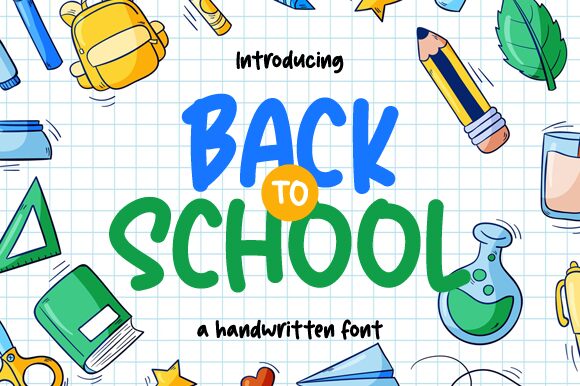
Back To School
Discover the charming allure of 'Back To School' by Graphix Line Studio, a font that captures the essence of handwritten authenticity. With its bold strokes and simple lettering, this font evokes the nostalgia of chalkboard scribbles and the excitement of learning.
Ideal for educational materials, inspirational quotes, or any project requiring a touch of personalization, 'Back To School' offers versatility in its most delightful form. Its legible yet playful style ensures your creative works stand out with a genuine handcrafted feel.
Embrace this font's potential to transform your designs with its unique character and warmth.